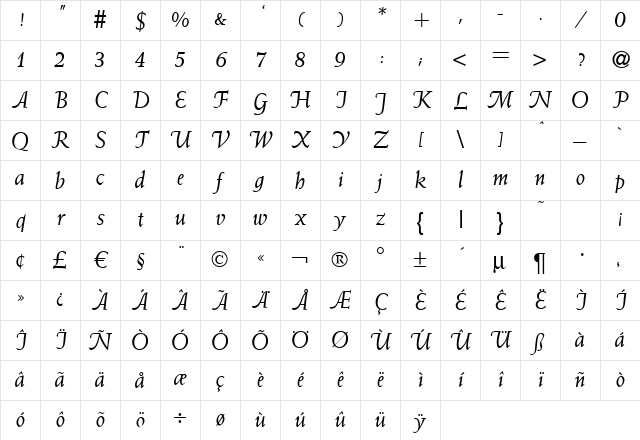
W690-Roman is a composed and adaptable typeface that performs quietly and consistently across a wide range of design contexts. The slanted form adds forward momentum and visual energy.